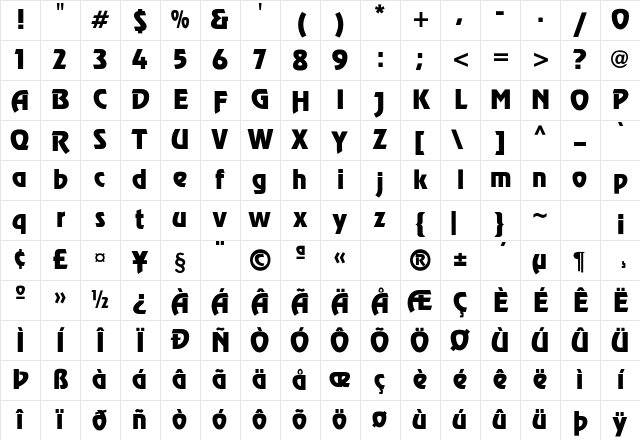
Announce Regular
Design Context for Announce
Announce is a composed and adaptable typeface that performs quietly and consistently across a wide range of design contexts.